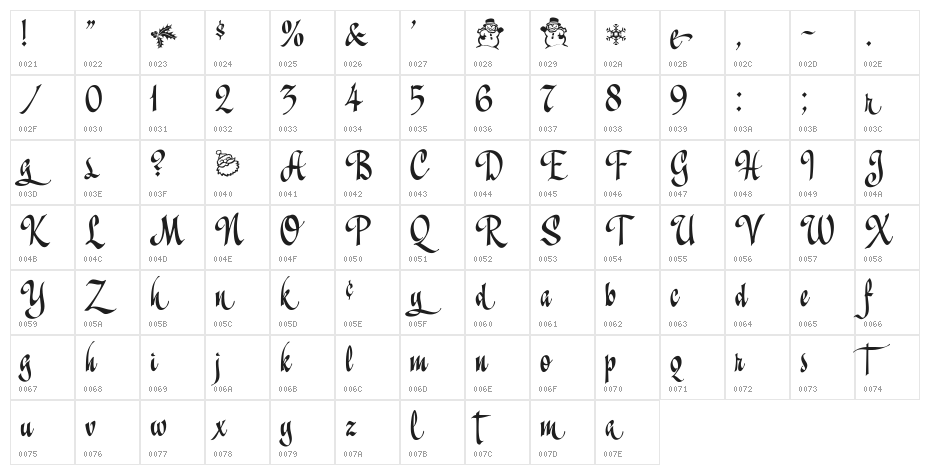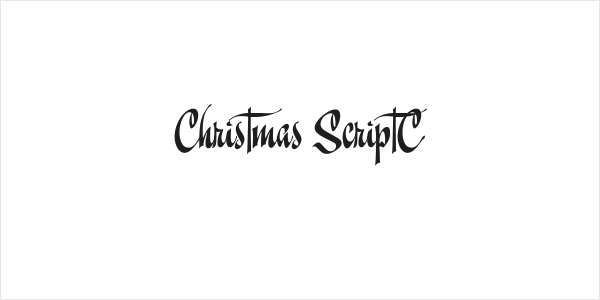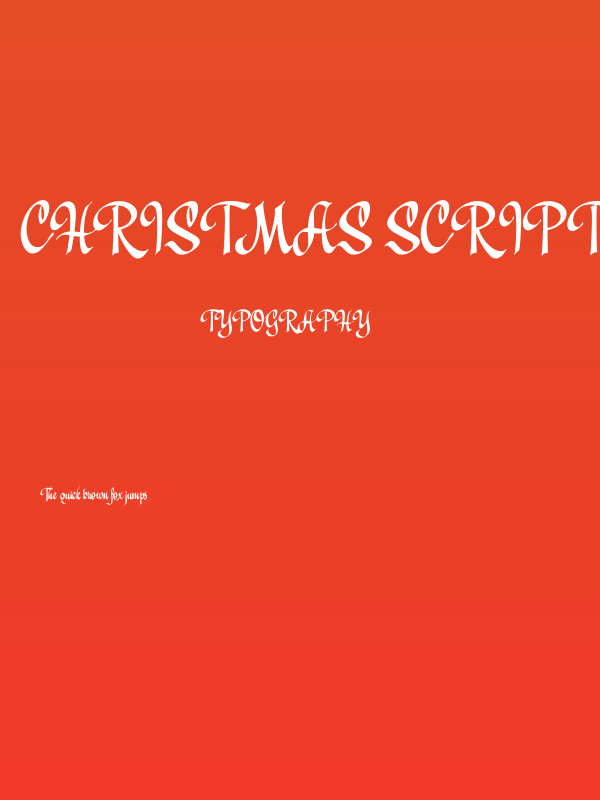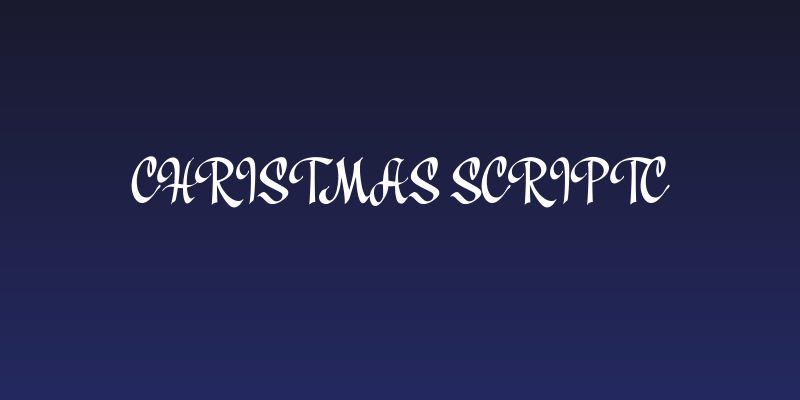
Christmas ScriptC Font
Christmas ScriptC Description
This font exudes a festive and elegant charm, perfect for holiday-themed projects. The uppercase letters are bold and ornate, with intricate curves and flourishes that add a touch of sophistication. The lowercase letters maintain a consistent style, featuring smooth, flowing lines that enhance readability while retaining a decorative flair. The numbers are equally stylish, with unique shapes that complement the overall aesthetic. Special characters include festive icons like snowmen and holly, adding a playful and thematic element. This font is ideal for creating eye-catching designs that capture the spirit of the season.
| Use Case | Headlines, Logos, Decorative text |
| Proposed Projects | Ideal for holiday cards, festive invitations, seasonal branding, and decorative signage. |